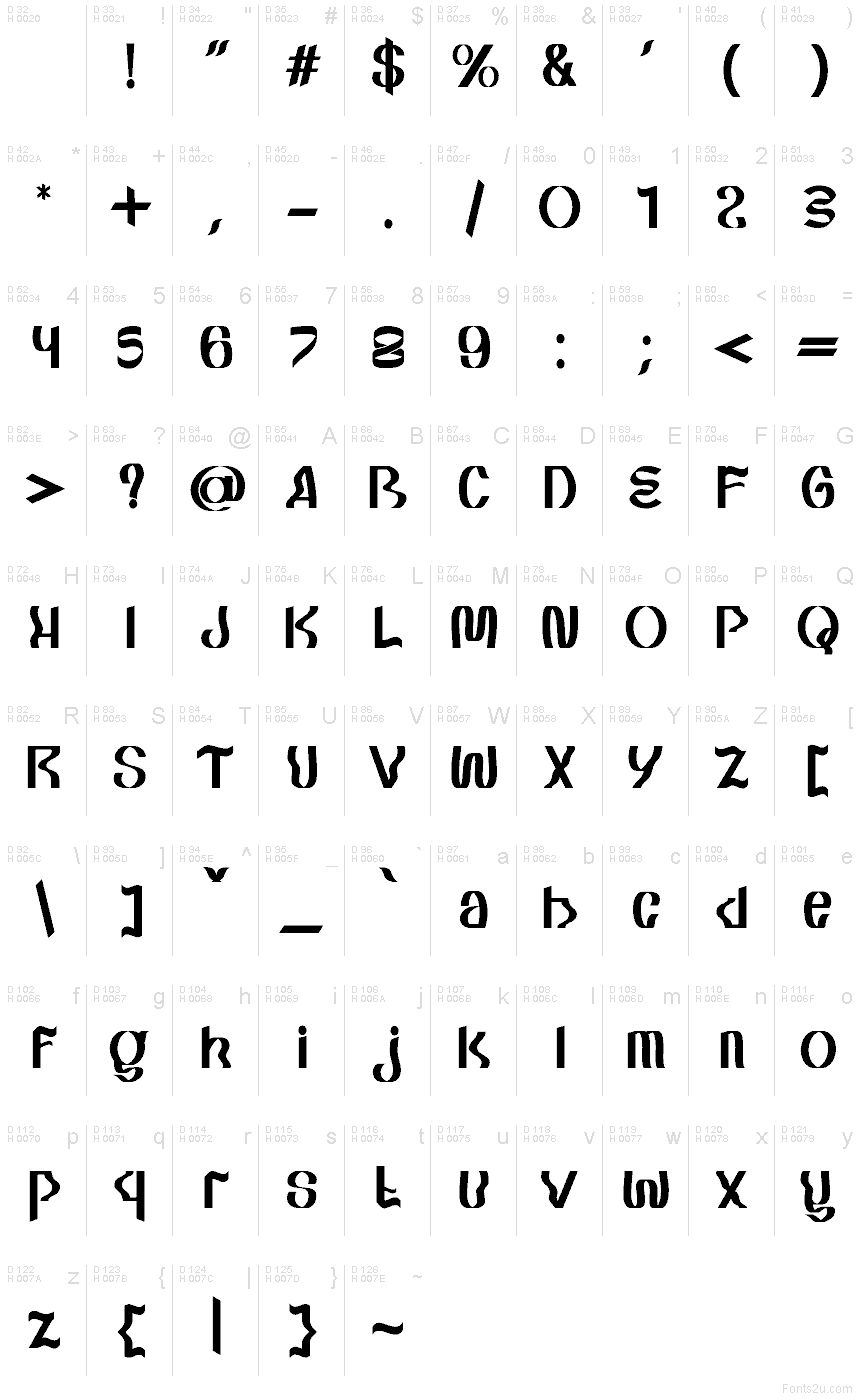
Lovira
Lovira font by Dhabee Studio is a free decorative display typeface that feels sculpted rather than simply drawn. Its bold, inky shapes are carved into striking curves and sharp slices, creating a rhythm that’s both glamorous and slightly mysterious. Wide, flowing forms brush up against sudden cuts and gaps, giving Lovira a luxe, editorial presence that immediately pulls the eye in.
Using Lovira, your titles and logos will carry the polish of high-end packaging or fashion mastheads. This free font shines on magazine covers, beauty branding, perfume boxes, posters, event invitations, and bold social graphics where a single word has to do all the talking. Pair it with a clean geometric sans in smaller text and let Lovira stay large, spacious, and dramatic for maximum impact.